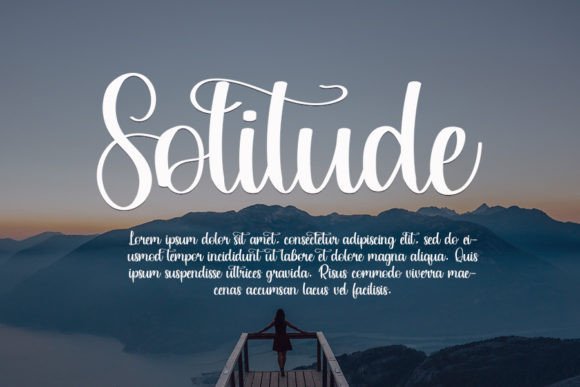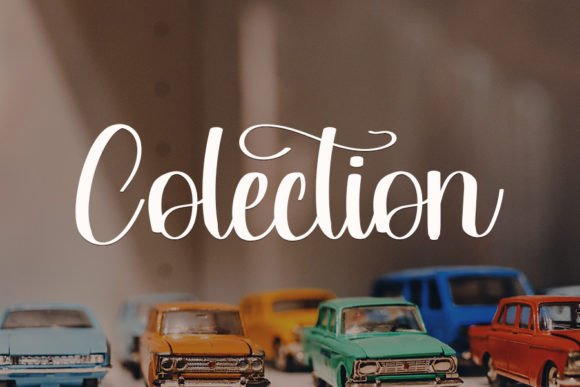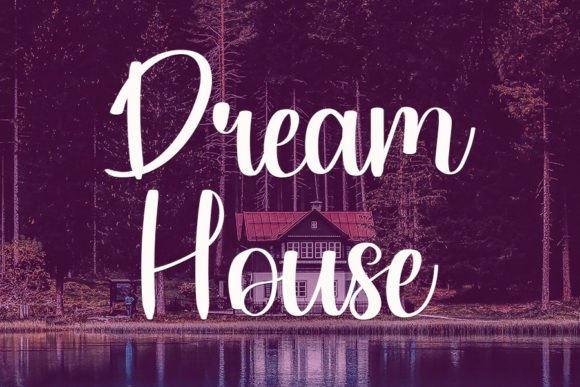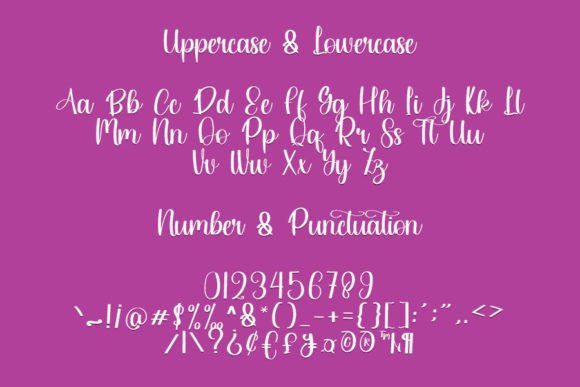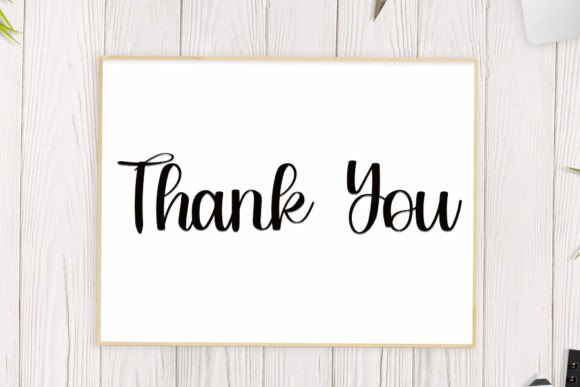
Introducing Family Garden Font: Elevate Your Designs with Elegance
Are you on the hunt for a font that adds a touch of elegance and sophistication to your designs? Look no further than the Family Garden Font, a beautiful handwritten font that is sure to capture your heart. With its incredibly distinct and timeless style, this font is perfect for designers and crafters looking to create spectacular designs that stand out from the crowd.
The Beauty of Family Garden Font
Family Garden Font is a neat and beautiful handwritten font that boasts an elegant touch, making it perfect for a wide range of projects. Whether you’re working on a logo, branding materials, or personal crafts, this font is sure to bring a touch of sophistication and refinement to your work. Its unique and distinctive style is sure to set your designs apart, making them truly unforgettable.
Key Features of Family Garden Font
- Elegant and Refined: Family Garden Font features an elegant and refined style that is perfect for designs that require a touch of sophistication.
- Handwritten with Love: This beautiful handwritten font is crafted with love and care, giving it a personal and unique touch.
- Distinct and Timeless: With its incredibly distinct and timeless style, Family Garden Font is sure to stand the test of time and remain a popular choice for designers and crafters.
- Versatile: This font is perfect for a wide range of projects, from logos and branding materials to personal crafts and DIY projects.
Why Choose Family Garden Font?
So why choose Family Garden Font for your next project? Here are just a few reasons why this font stands out from the crowd:
- Unique Style: Family Garden Font features a unique and distinctive style that is sure to set your designs apart.
- High-Quality: Family Garden Font is a high-quality font that is crafted with care and attention to detail.
- Perfect for Designers and Crafters: Whether you’re a professional designer or a crafter working on a personal project, Family Garden Font is the perfect choice.
How to Use Family Garden Font
Using Family Garden Font is easy and straightforward. Here are a few tips to get you started:
- Pair it with Other Fonts: Family Garden Font pairs well with a wide range of other fonts, making it easy to create stunning combinations.
- Experiment with Sizes and Styles: Don’t be afraid to experiment with different sizes and styles to find the perfect look for your design.
- Use it for Headings and Titles: Family Garden Font is perfect for headings and titles, adding a touch of elegance and sophistication to your designs.